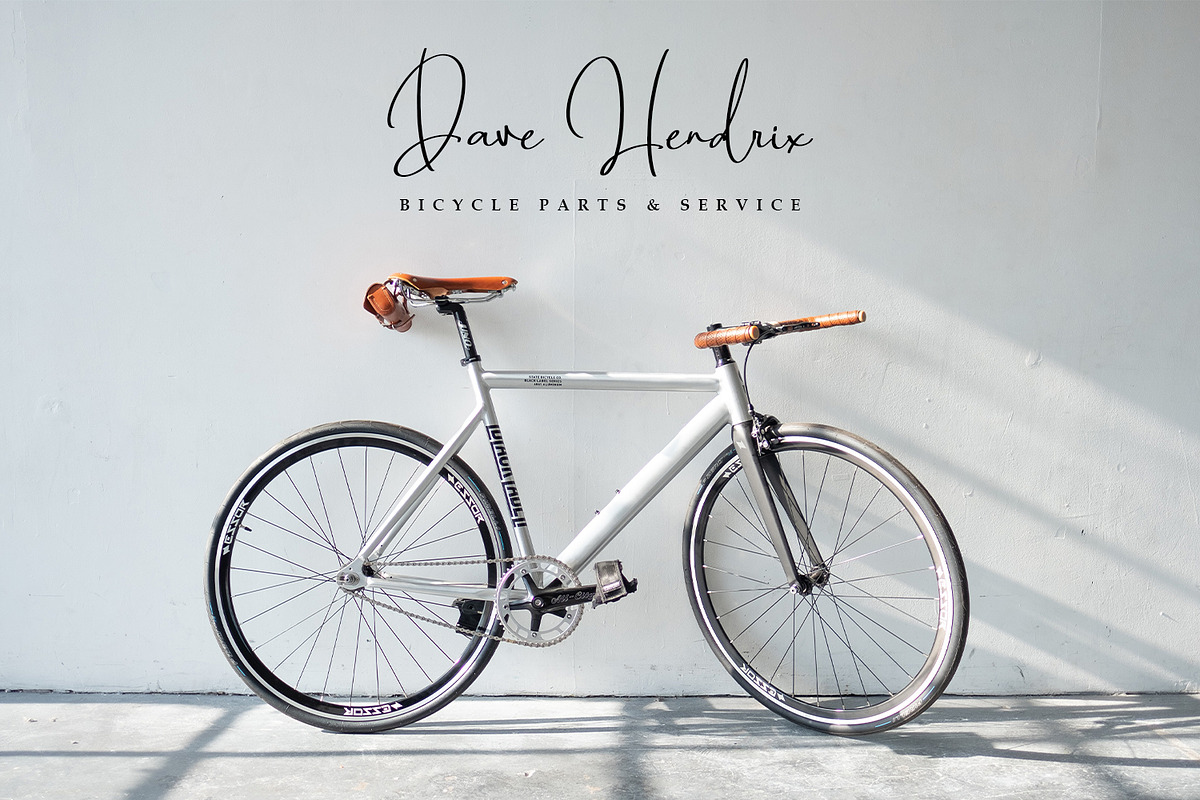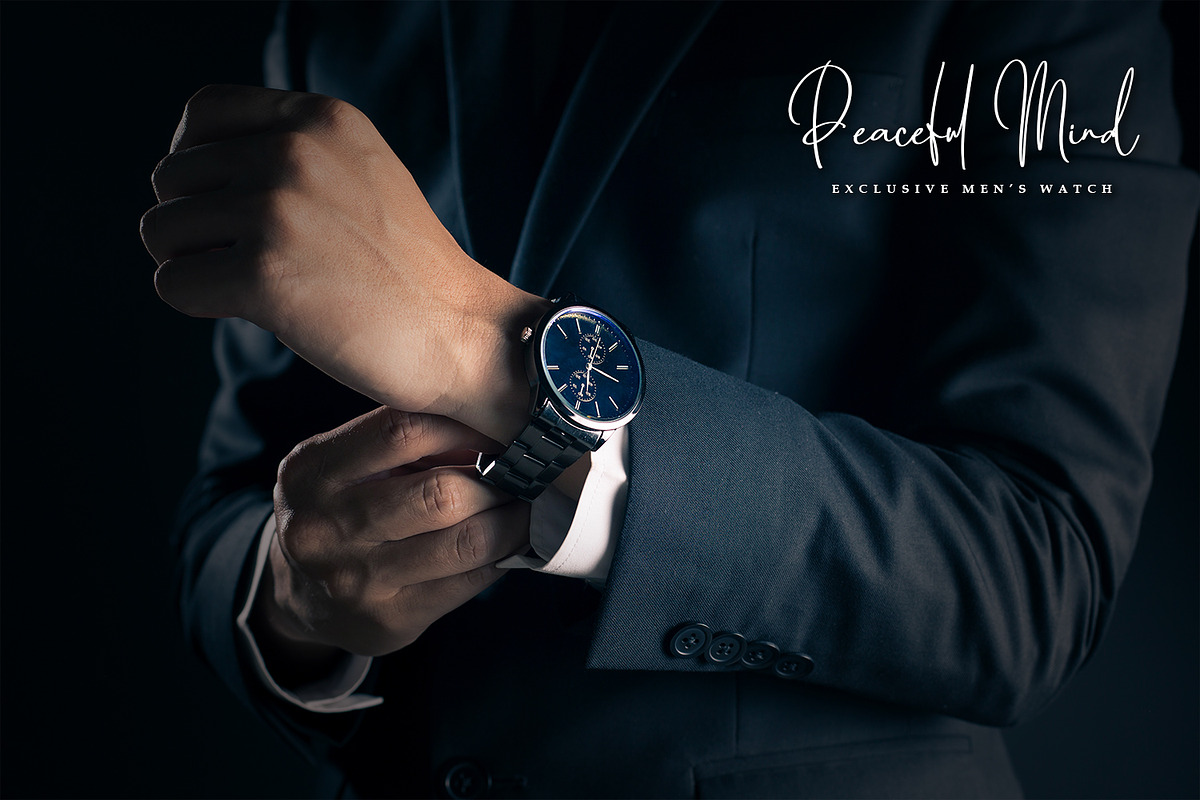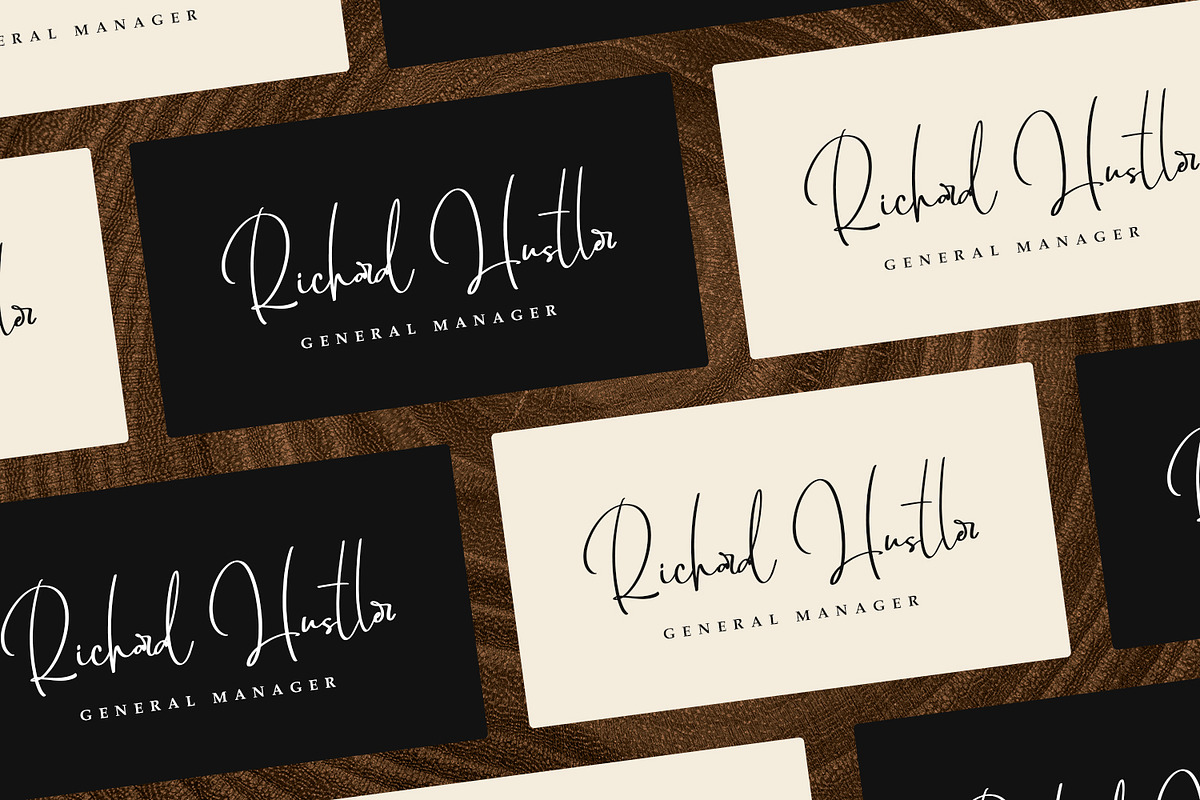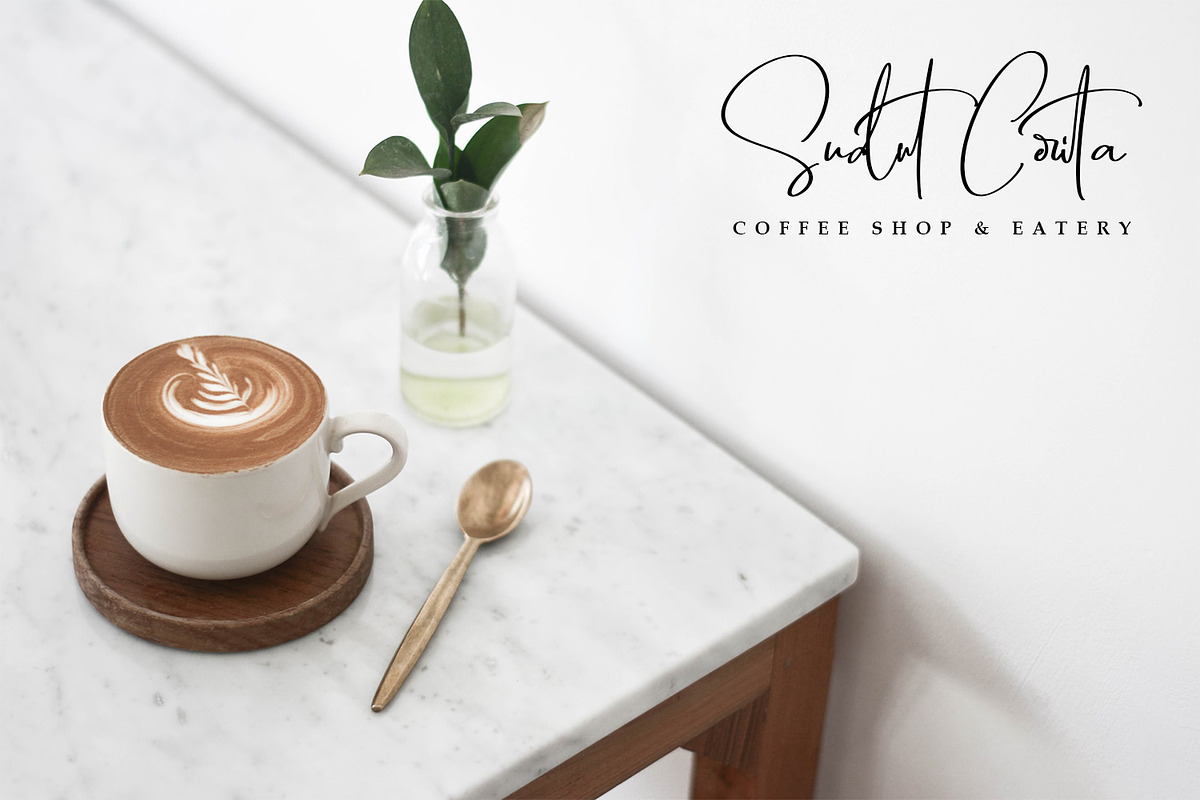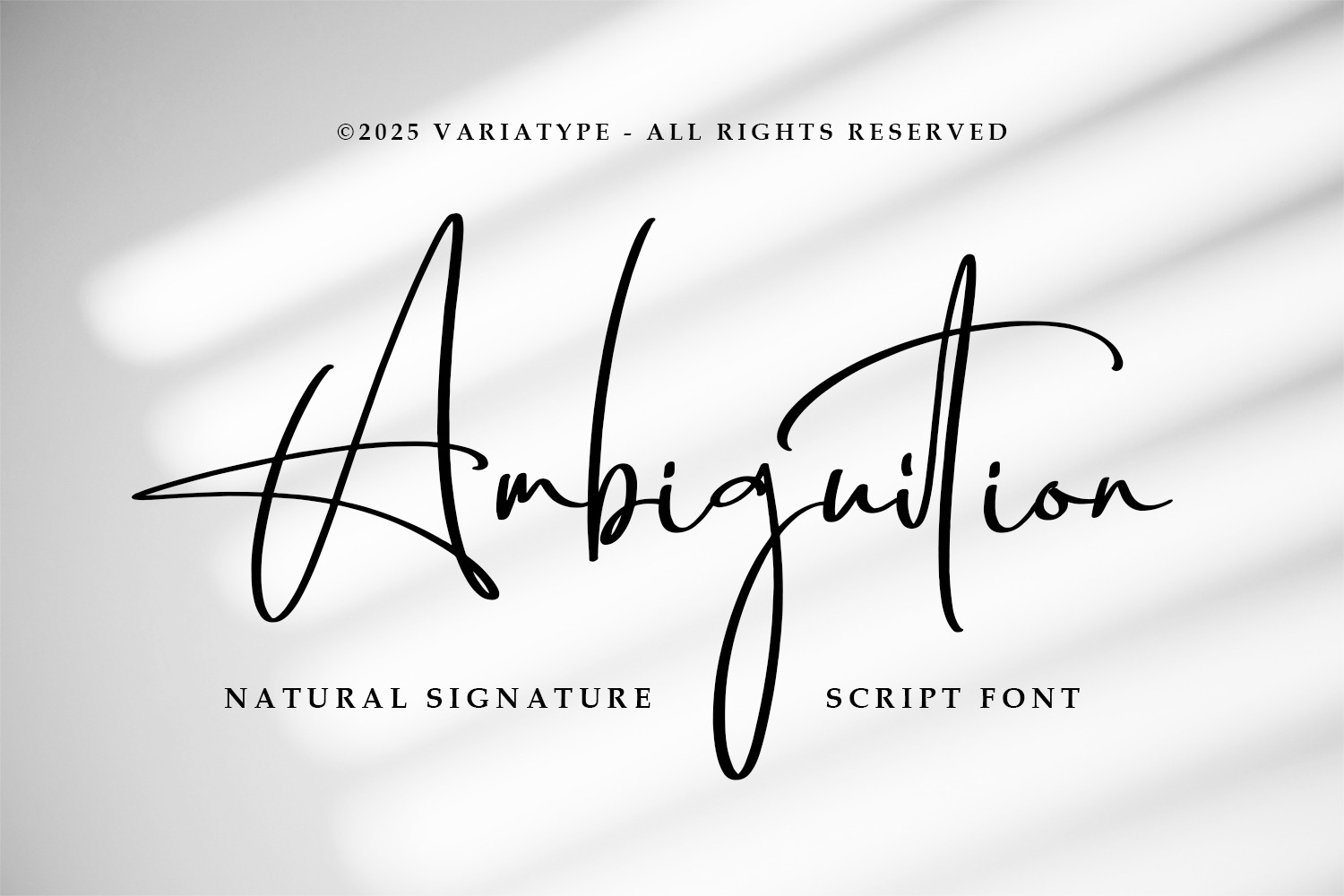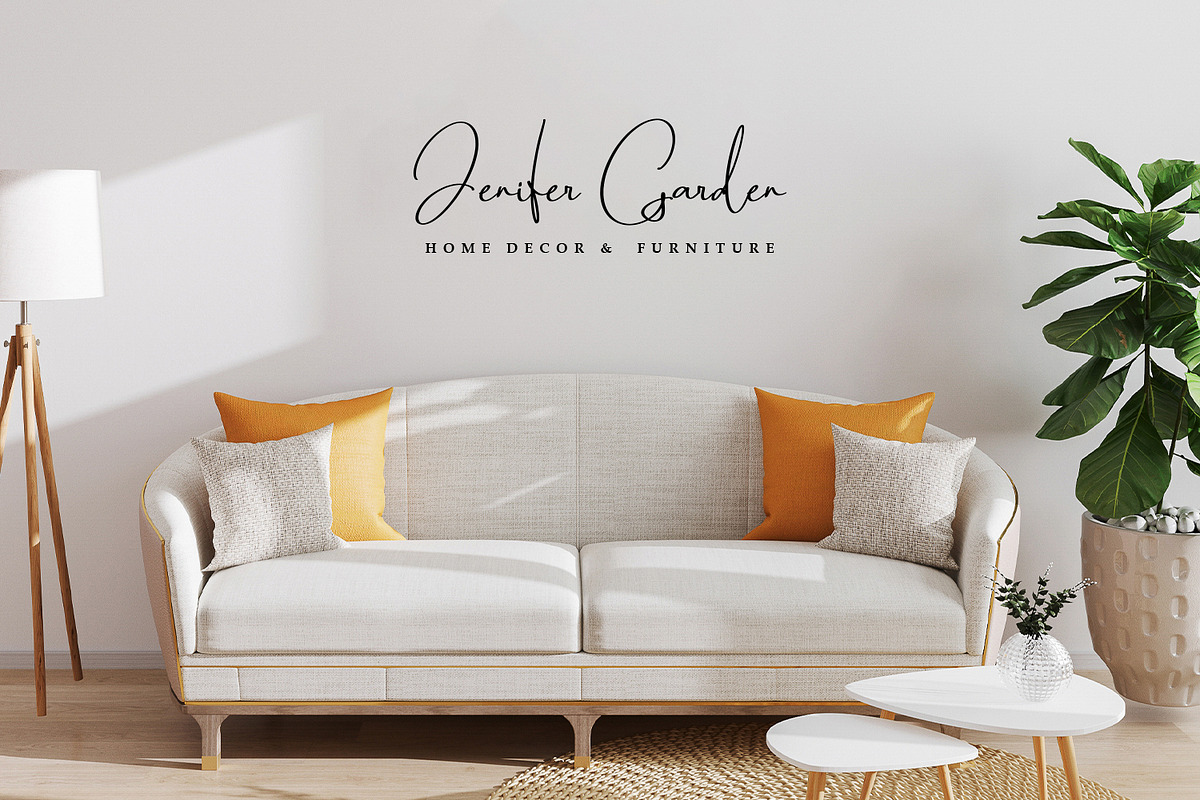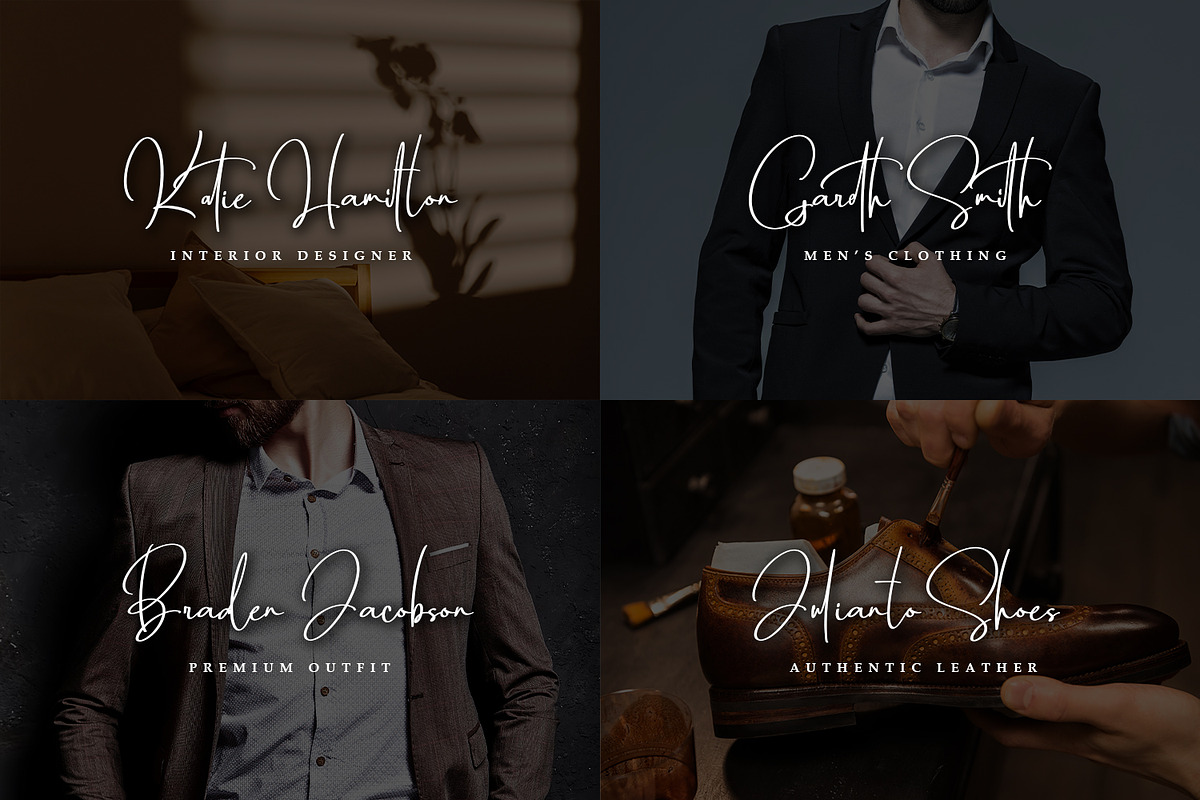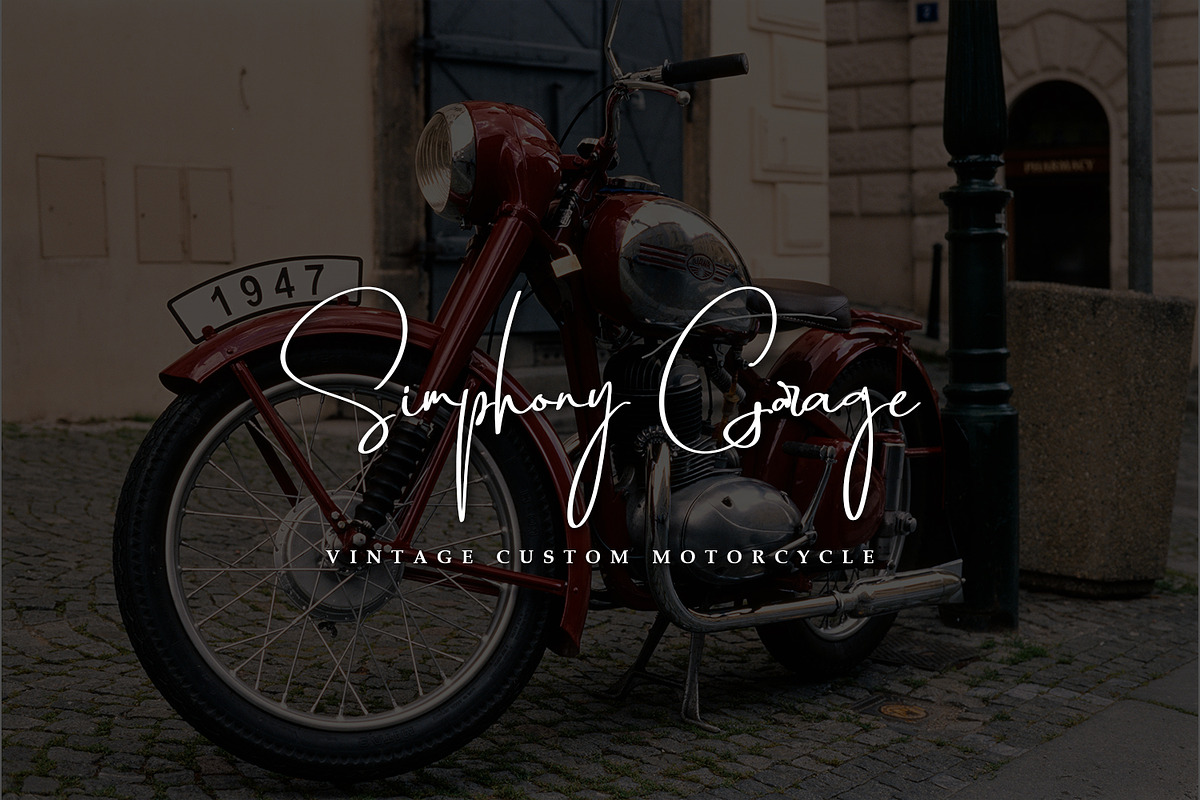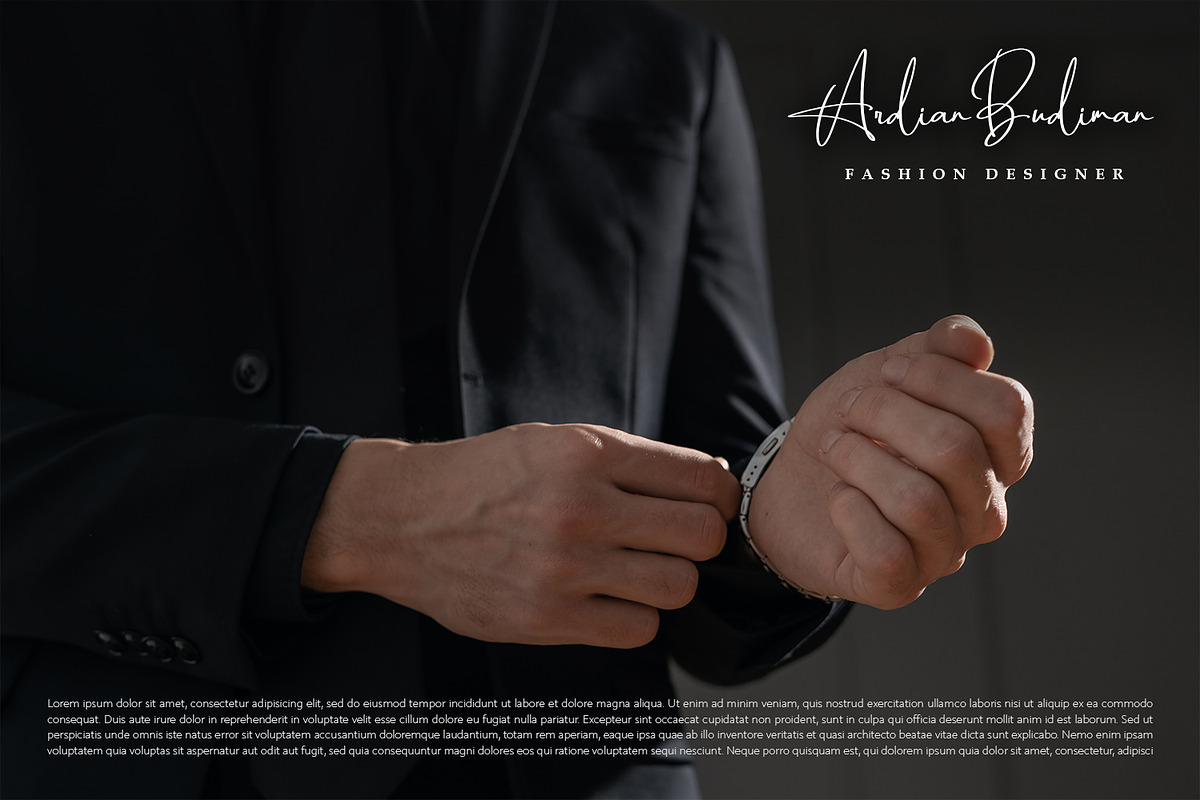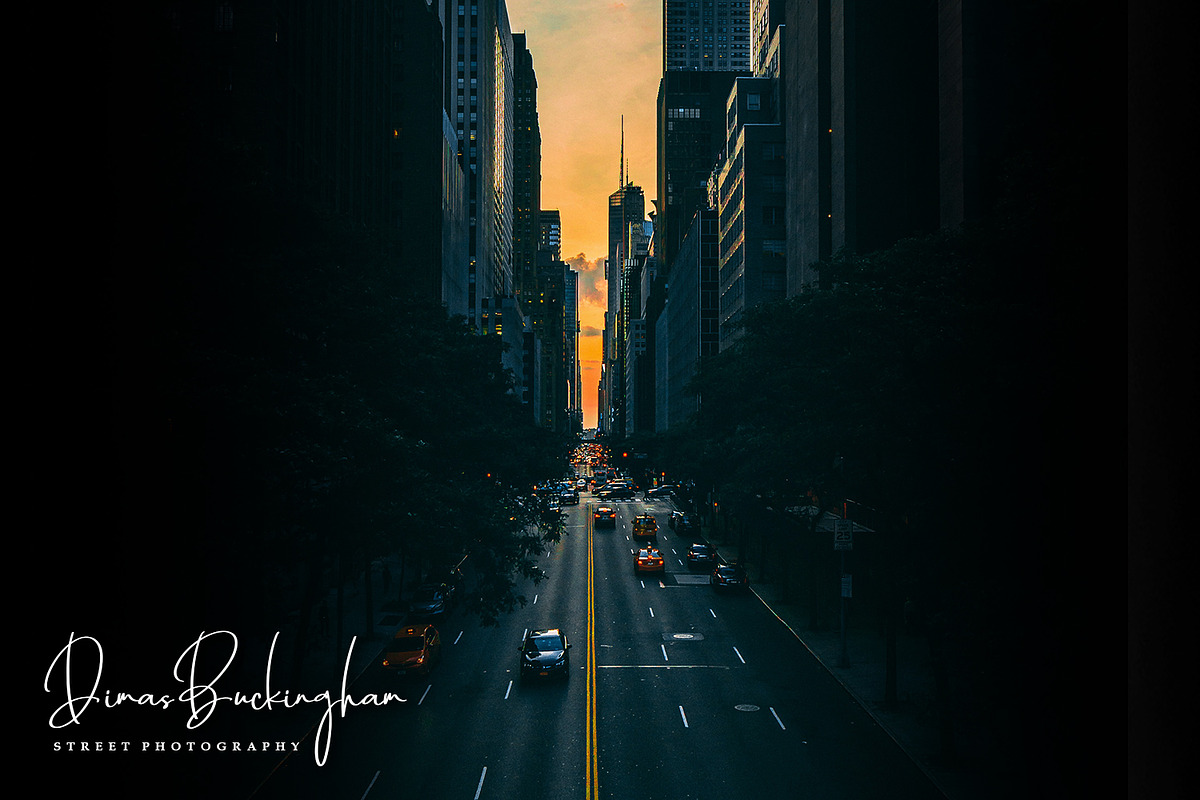
Ambiguition - Natural Signature Font
Ambiguition is a natural, handwritten signature script font designed to bring an authentic and personal feel to your creative work. With smooth curves and textured strokes, this font is perfect for logo design, self-branding, Instagram content, wedding invitations, product packaging, and more.
Whether you’re a graphic designer, content creator, or business owner, Solitude Brother adds a touch of elegance and warmth to every project. Its versatile, modern style makes it ideal for both digital and print use.